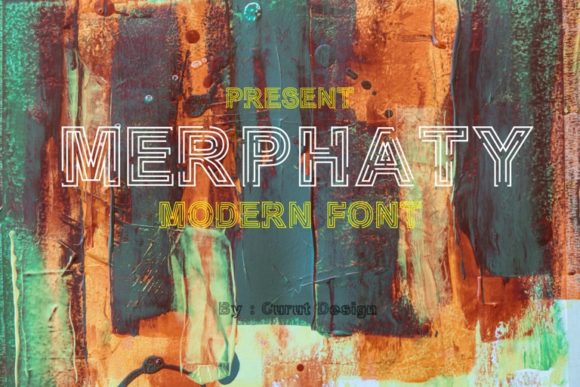
Feast your eyes on Merphaty, an enthralling display font family that's not just a font, it's an architectural marvel! Inspired by the captivating labyrinthine landscapes of mazes, Merphaty weaves its way into your designs with an air of mystery and intrigue. This modern font family is a true masterpiece, meticulously crafted to turn your creative visions into reality.
With its distinctive geometric structure and bold strokes, Merphaty commands attention like a magnetic force. It's the perfect choice for contemporary resumes, where you want to leave a lasting impression. Let Merphaty's sharp angles and clean lines guide your words, creating a visual symphony that speaks volumes about your professionalism and creativity.
Step into a world where imagination meets precision. Merphaty's unique character set, including uppercase and lowercase letters, numbers, and symbols, provides endless possibilities for customization. Experiment with different sizes, colors, and layouts to create stunning headlines, captivating posters, eye-catching social media posts, and so much more. The possibilities are truly limitless.